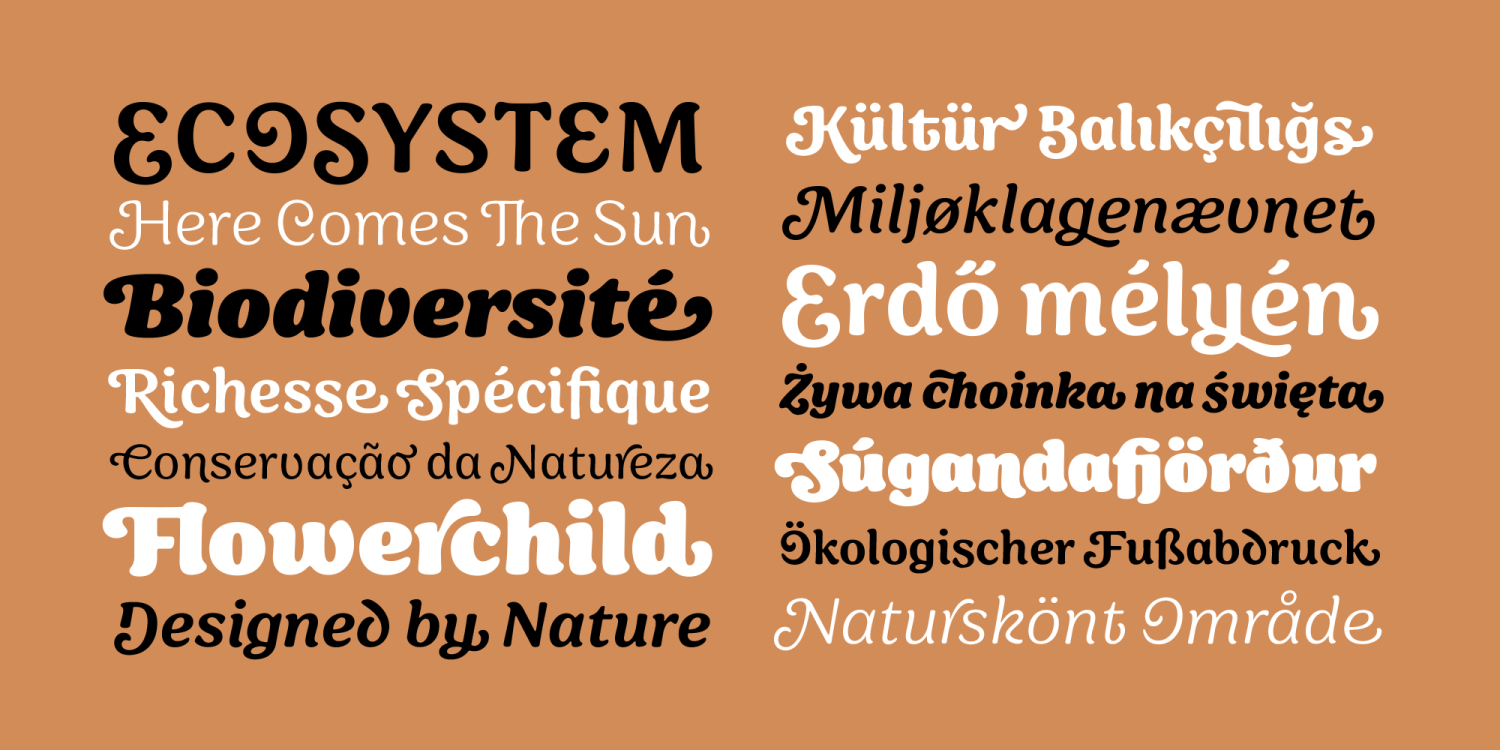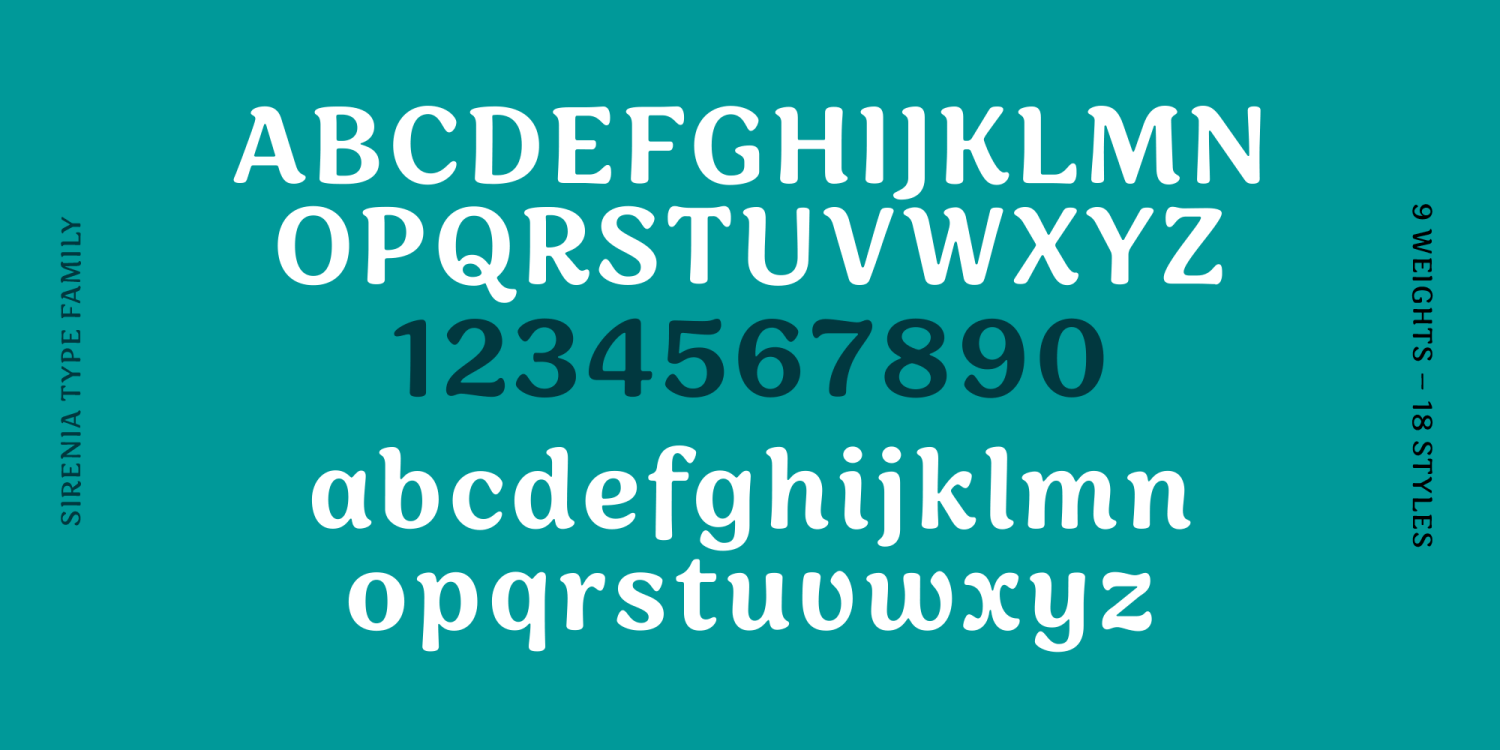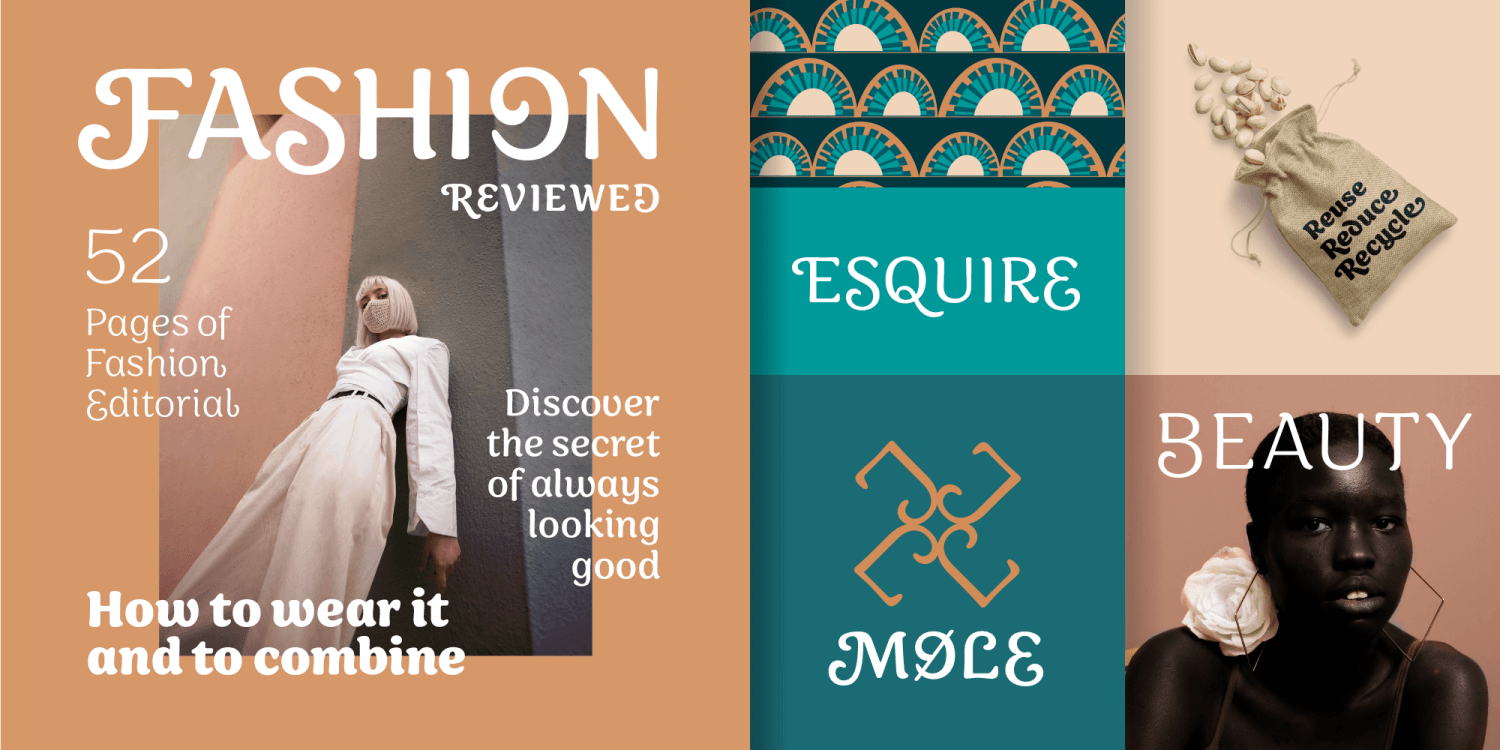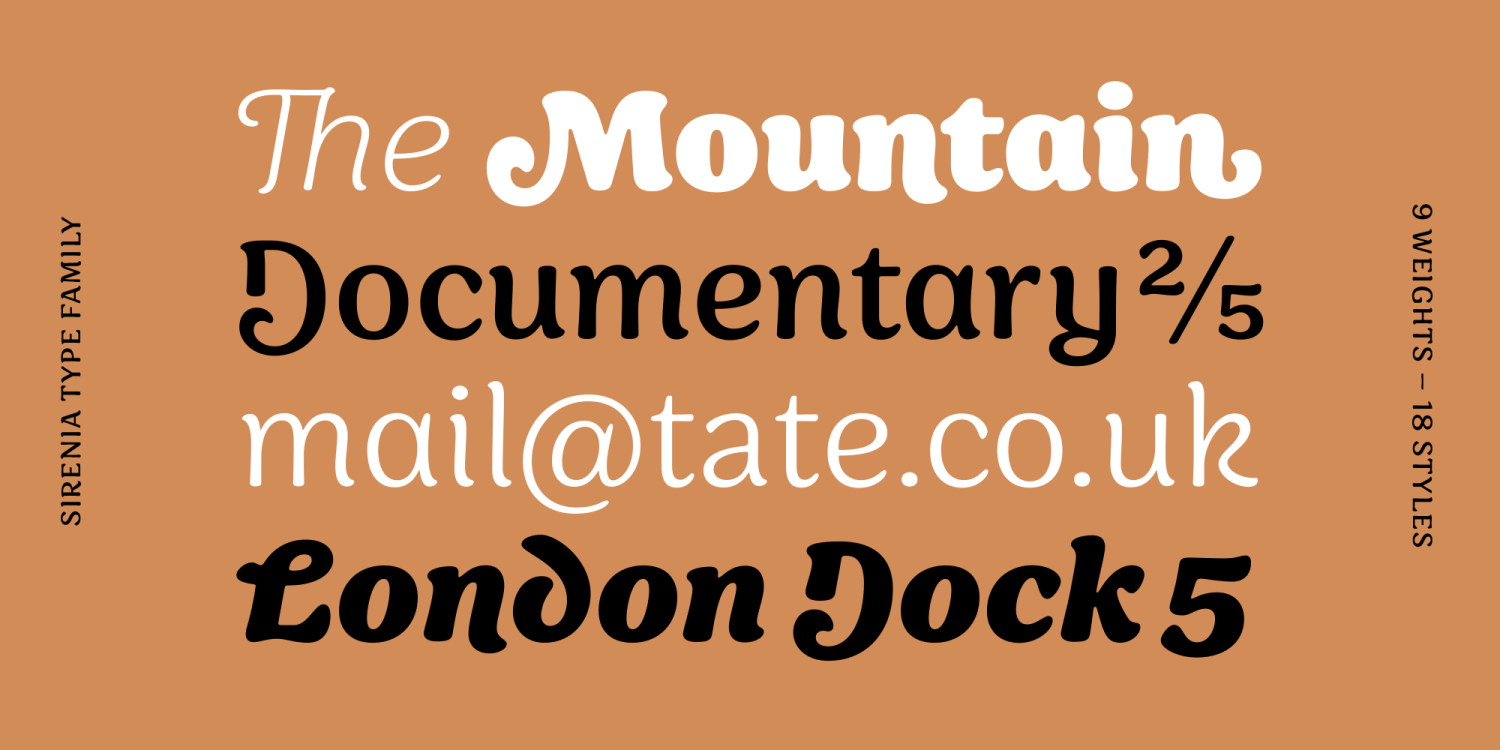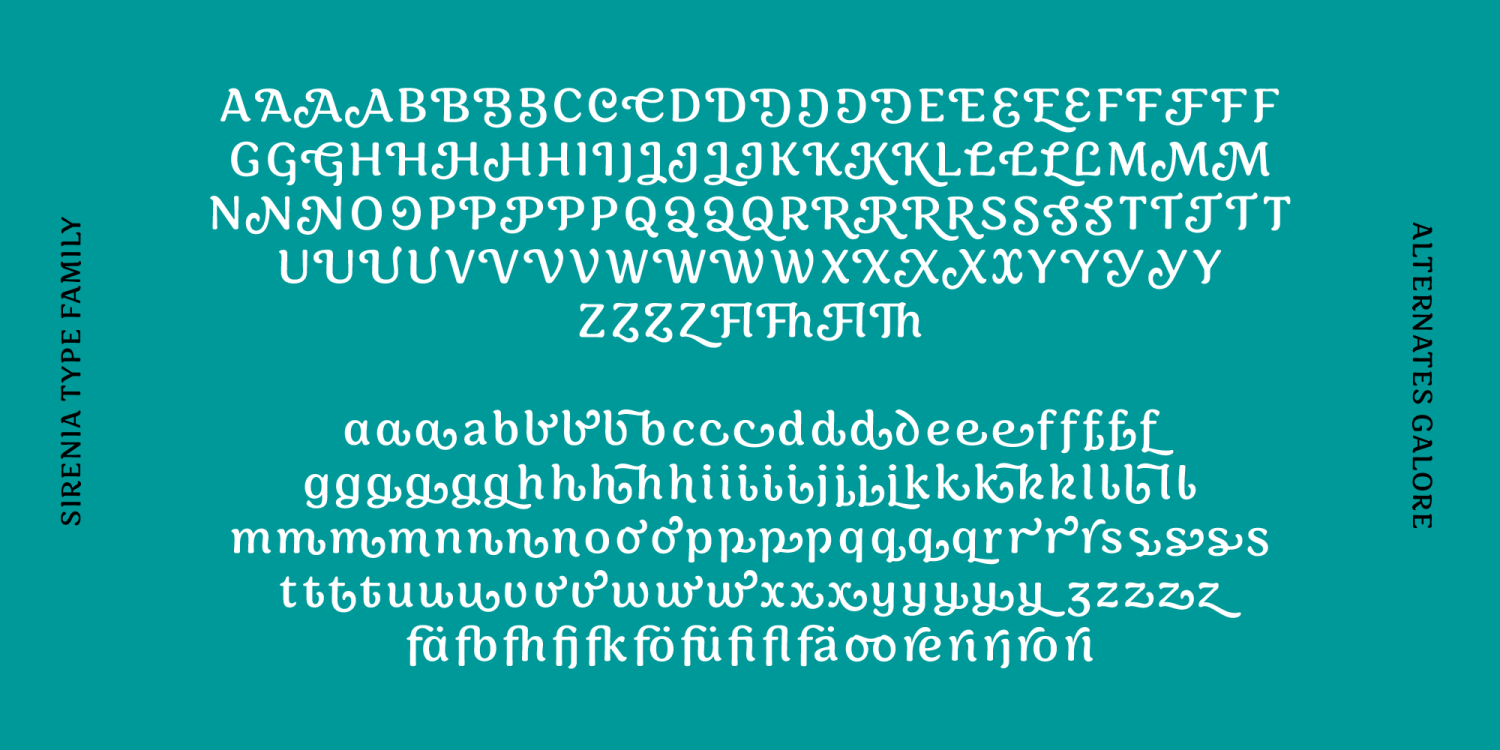
About Sirenia
Sirenia is a friendly display typeface for branding, packaging and advertising projects. It offers an easy way to create striking logotypes, as Sirenia’s 1270 characters contain many decorative letters and swashes for initial, medial and final letters…